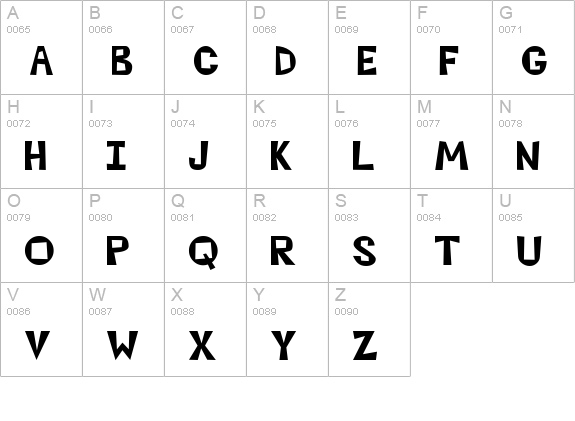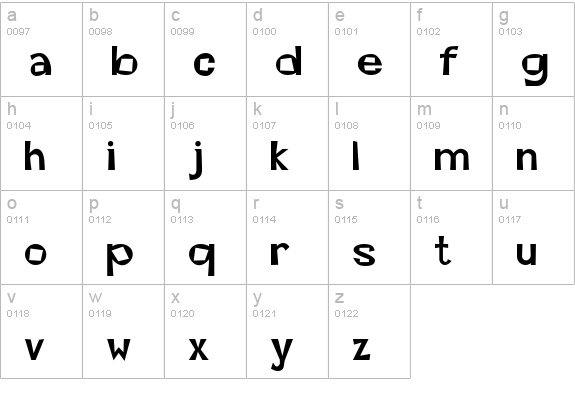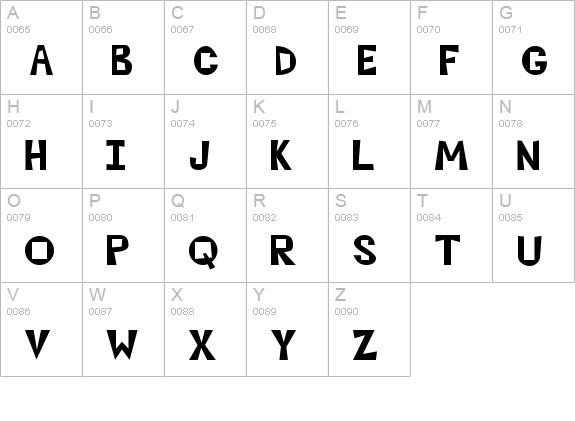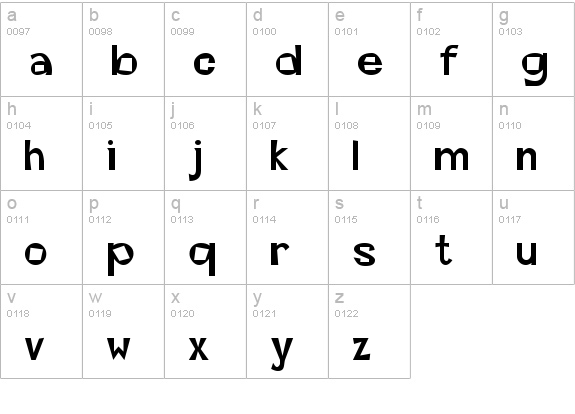
Kwirky Bold Font Details
Kwirky Bold is a strong, high-contrast variant in the Kwirky typeface family \xE2\x80\x94 well suited to headlines, attention-grabbing titles, and strong calls-to-action.
Introducing Kwirky Bold, a playful and energetic font that is sure to make your designs stand out! With its quirky and unique style, Kwirky Bold is perfect for adding a touch of fun to any project. Whether you're working on a poster, logo, or website design, this font will bring a sense of creativity and originality. And the best part? Kwirky Bold is available for free download at FontsMarket.com! That's right, you can easily access this eye-catching font and start incorporating it into your work today. So why wait? Add a splash of personality to your designs with Kwirky Bold and let your creativity shine!